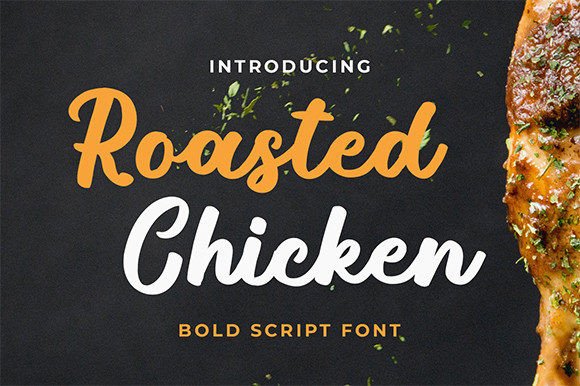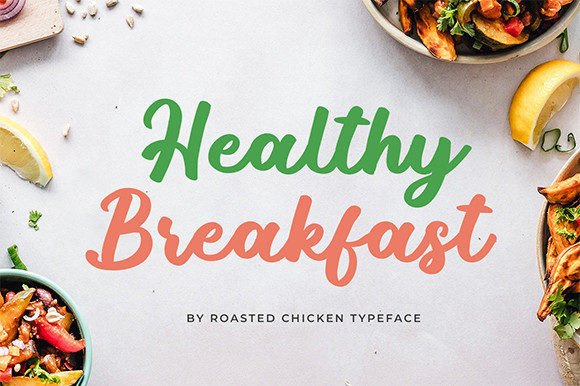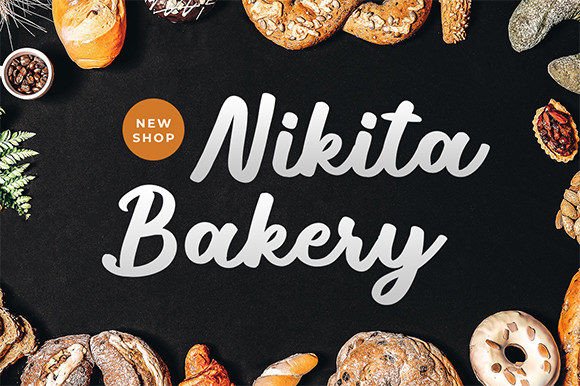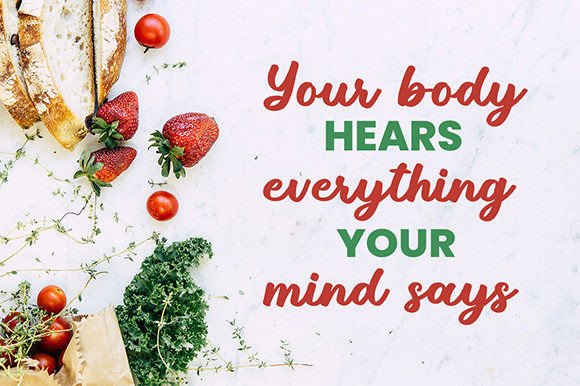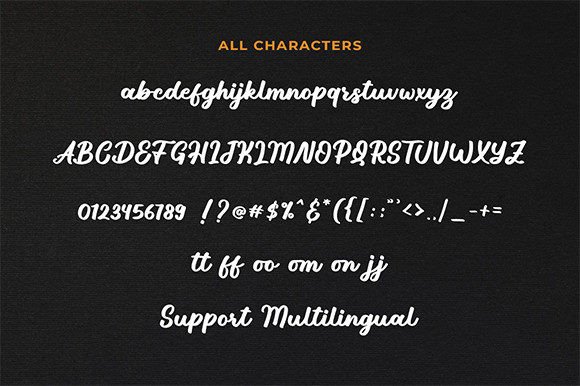
Roasted Chicken Font
Roasted Chicken Handwritten Font – Fun and Sweet Typeface
The Roasted Chicken Handwritten Font is a playful and charming script typeface designed to add warmth and personality to your projects. With its casual handwritten strokes and sweet flow, it gives any design a natural and creative touch. Whether you’re designing greeting cards, posters, or digital graphics, this font ensures your work feels unique and full of character.
A Handwritten Script with Style
The Roasted Chicken Handwritten Font blends smooth curves with well-balanced proportions, making it easy to read while keeping its playful handwritten charm. Its fun style is perfect for designs that need a friendly, authentic vibe. Because of this balance, it adapts well to both casual and professional projects.
Perfect for Crafts and Greeting Cards
One of the best uses of the Roasted Chicken Handwritten Font is in greeting cards, thank-you notes, and creative crafts. Its cheerful flow adds a sweet and heartfelt look to personal projects. At the same time, it works beautifully in posters, invitations, and DIY designs, making it a versatile choice for designers.
The Roasted Chicken Handwritten Font adapts seamlessly to a variety of uses. From product packaging and branding to social media graphics and event signage, it adds a natural handwritten charm. Its fun and approachable design ensures it works well in both digital and print applications.
Why Designers Love Roasted Chicken Font
Designers love the Roasted Chicken HandwrittenFont because it combines playfulness with usability. Its sweet strokes make it ideal for decorative projects, while its readability ensures it remains professional enough for branding. This versatility makes it a great addition to any creative toolkit.
In summary, the Roasted Chicken HandwrittenFont is a fun, sweet, and versatile script typeface. With its casual handwritten strokes, quick installation, and wide usability, it is perfect for greeting cards, posters, crafts, and branding. Don’t miss the chance to download Roasted Chicken HandwrittenFont and bring playful charm to your creative projects.